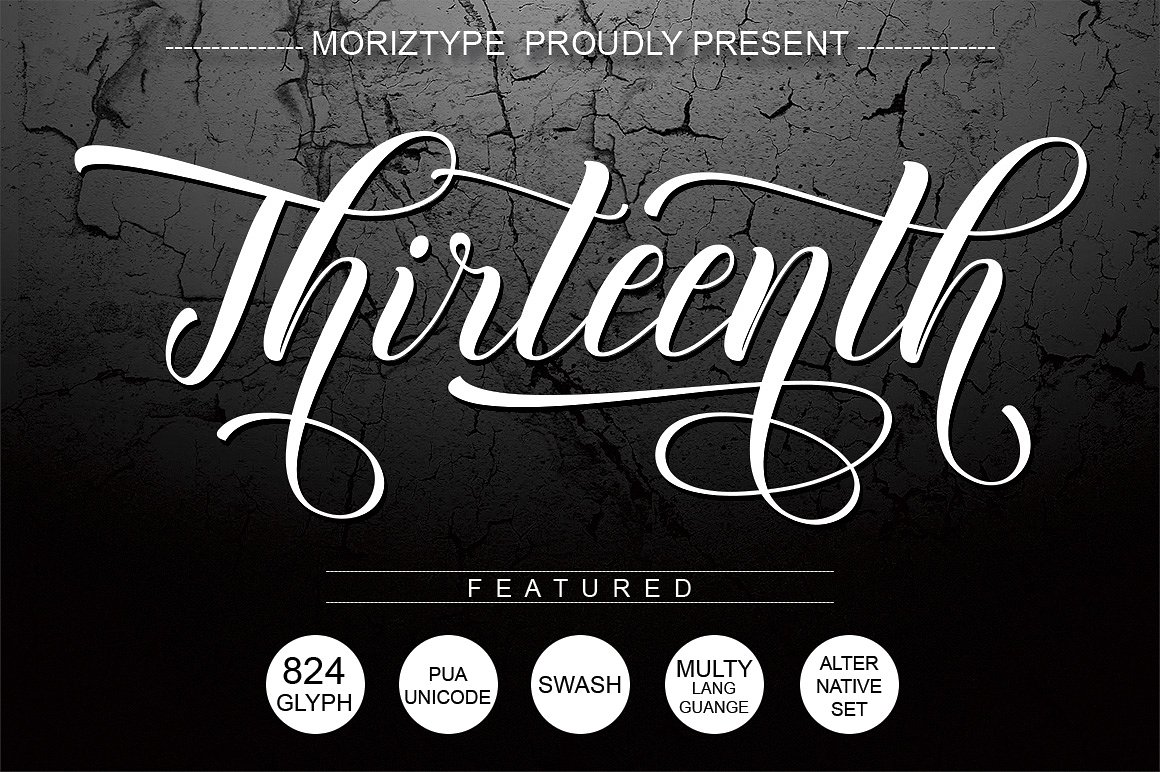
Thirteenth Script Font
Thirteenth Script – a new fresh & modern script with a handmade calligraphy style, decorative characters and a dancing baseline! So beautiful on invitation like greeting cards, branding materials, business cards, quotes, posters, and more!